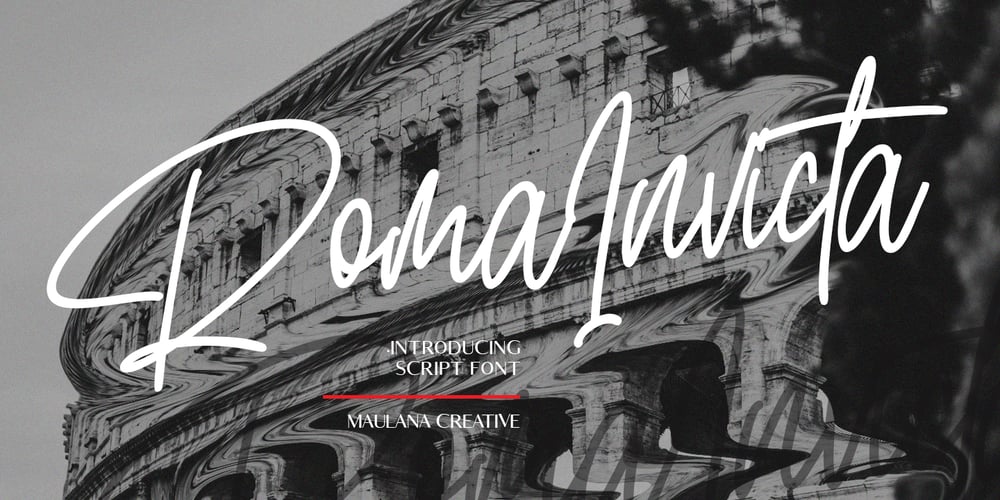
Roma Invicta Font Family was designed by Gilang Maulana and published by Maulana Creative. Roma Invicta contains 1 styles and family package options. Roma Invicta FontGive your designs an authentic handcrafted feel. “Roma Invicta Font” is perfectly suited to signature, stationery, logo, typography quotes, magazine or book cover, website header, clothing, branding, packaging design and more.Thanks for use this font ~ Maulana